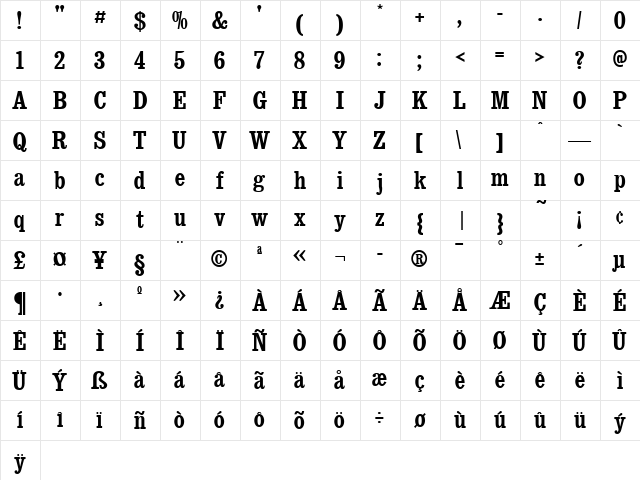
AIEgyptianCondensed Regular
Design Context for AIEgyptianCondensed Typeface
AIEgyptianCondensed combines the readability of serif typography with the visual weight of a slab construction, resulting in a typeface that feels both authoritative and approachable. The condensed width makes it efficient for tight spaces without sacrificing legibility.
Works well in editorial design, news publishing, impactful branding, and poster typography.
Pro Tip: Try AIEgyptianCondensed set tight in headlines for a classic editorial feel. Its slab serifs create strong horizontal rhythm that anchors a page layout.